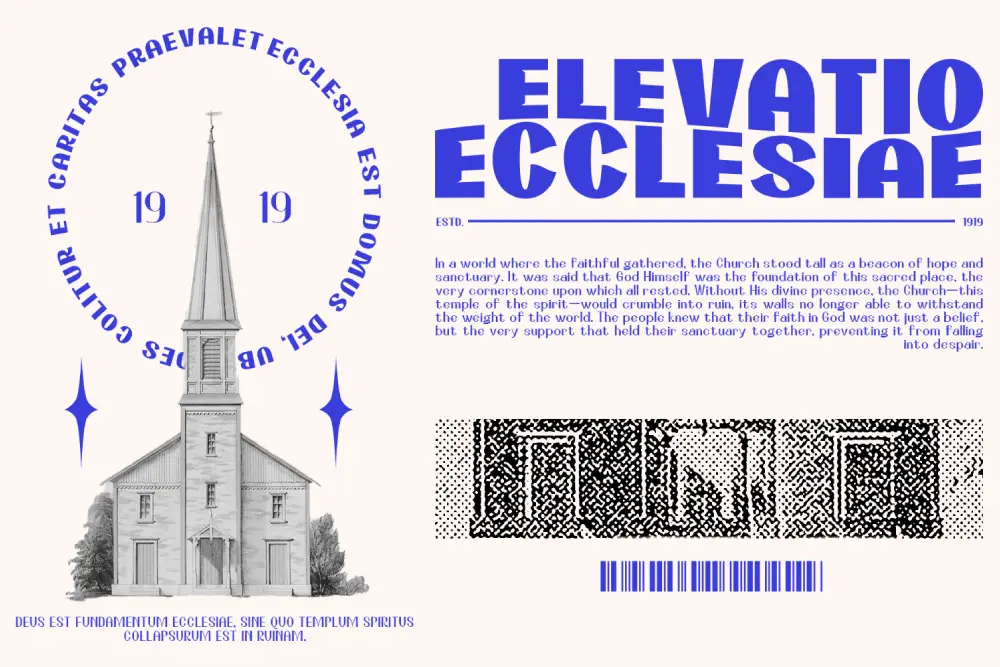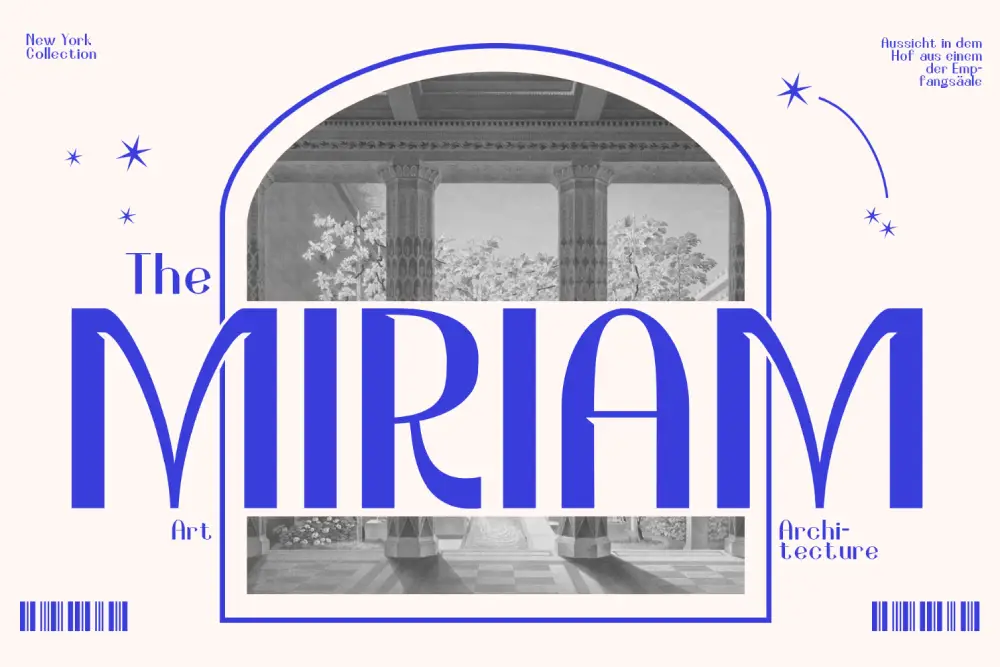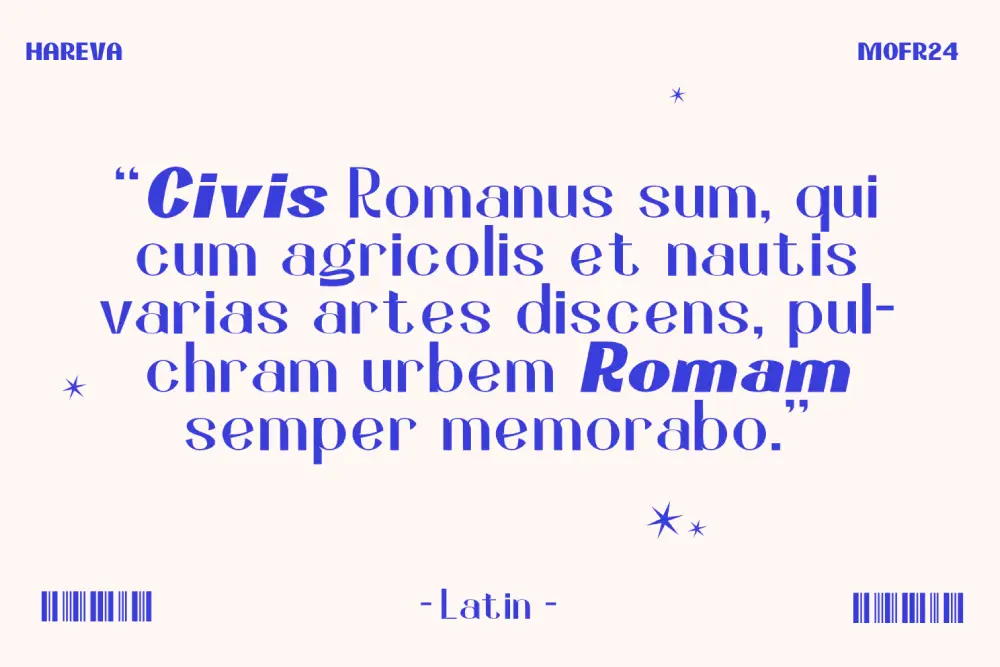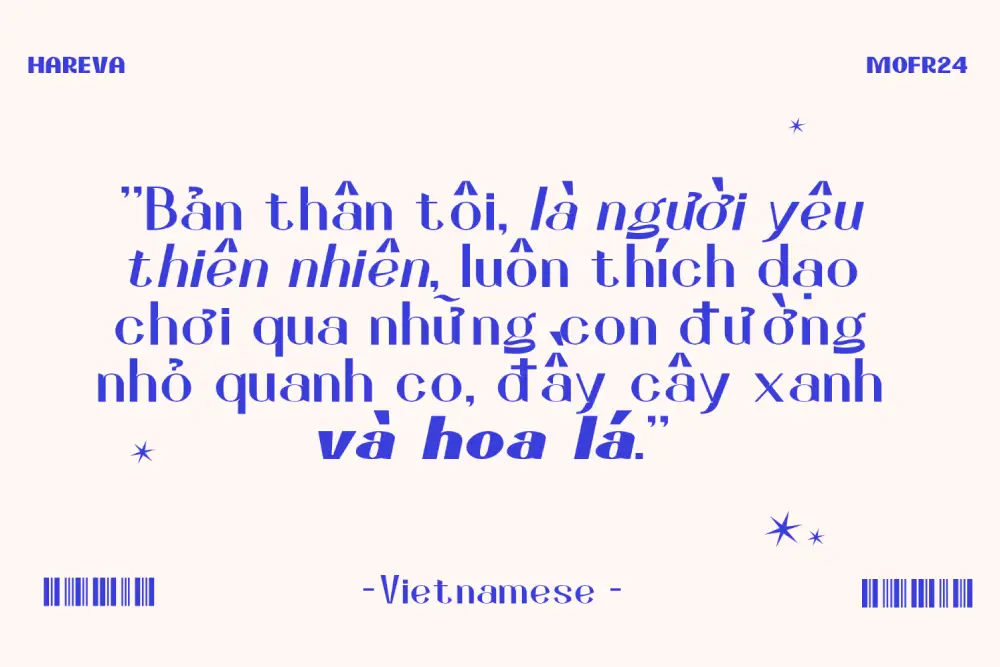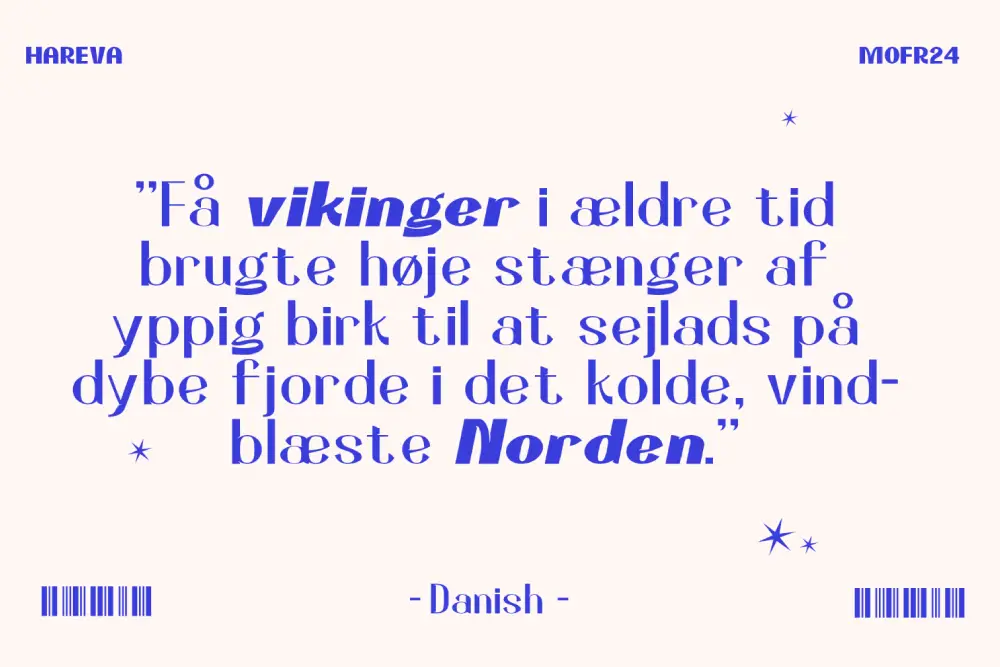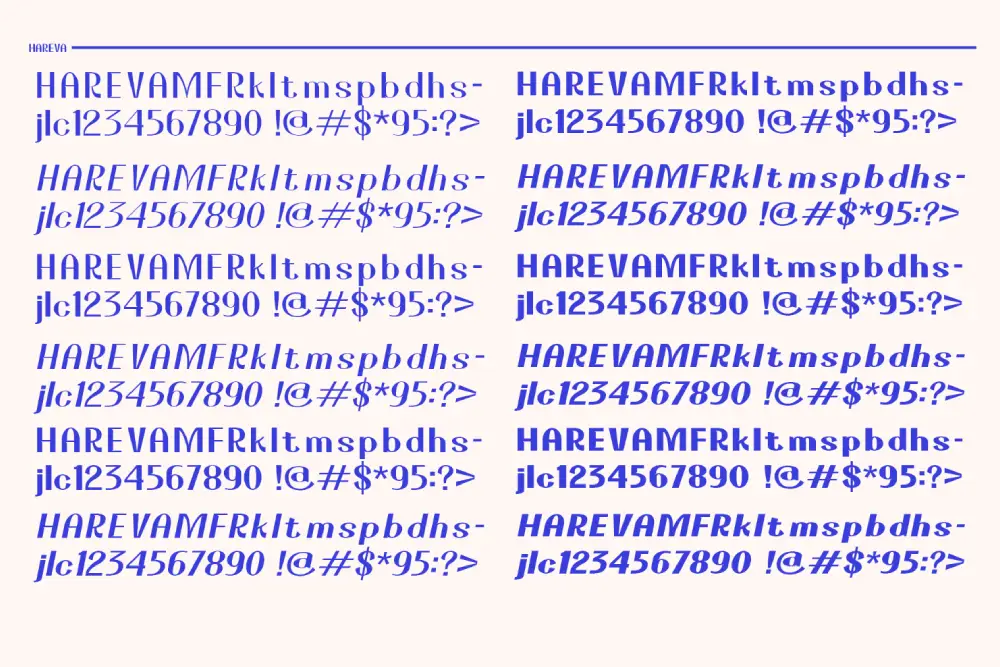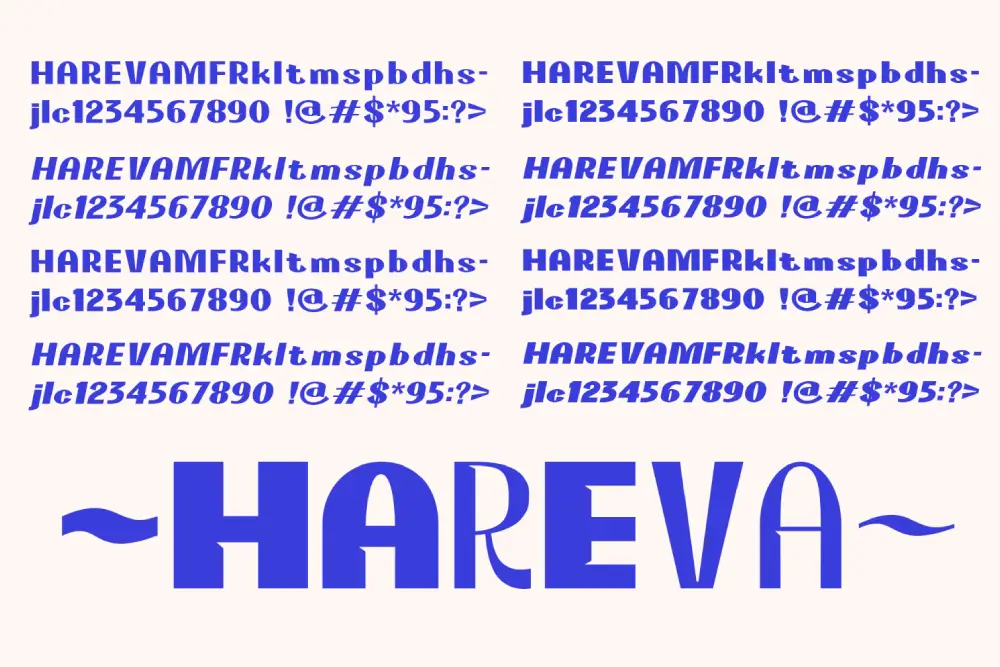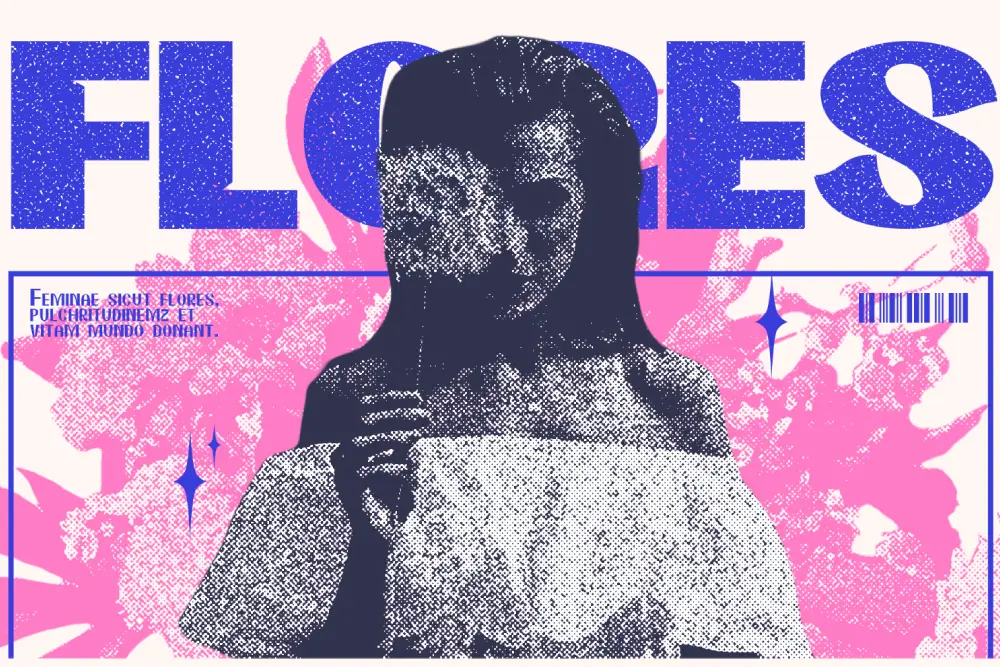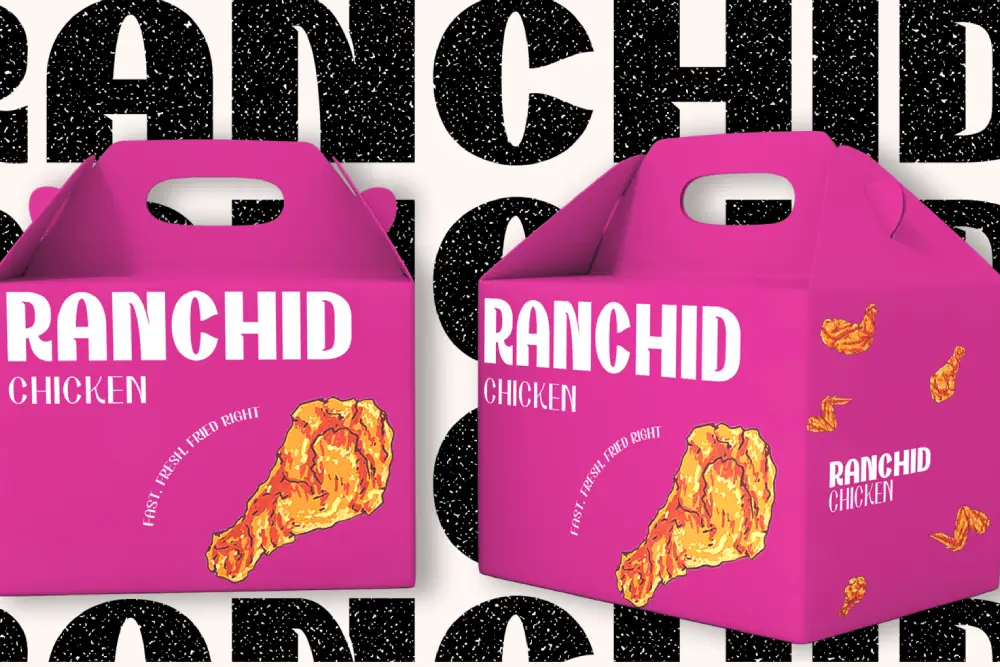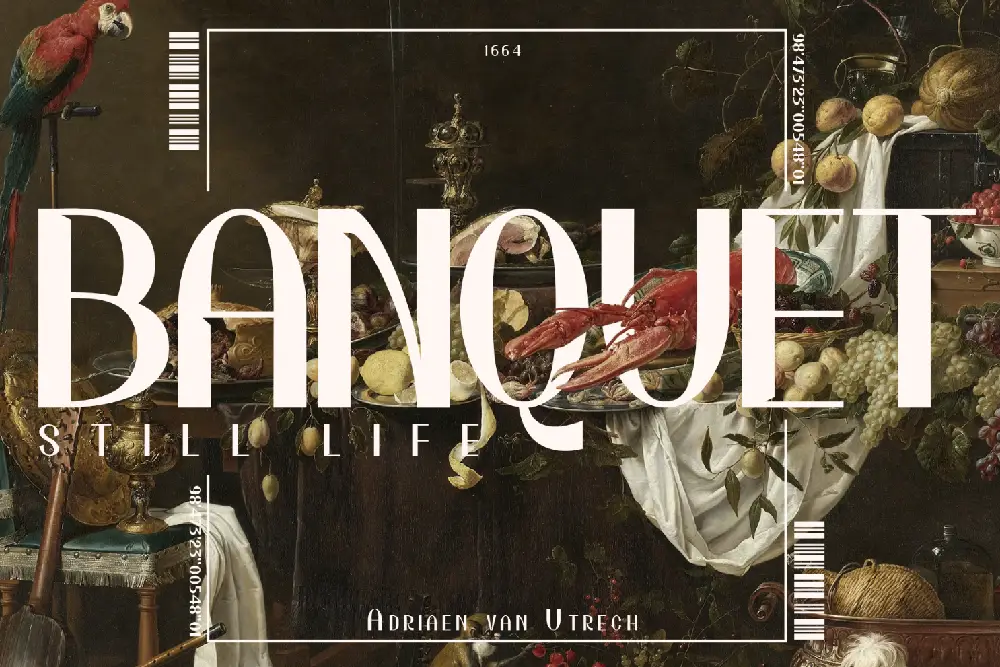
Hareva – Sleek Retro Sans Font for Modern Branding
Typography tells stories, and Hareva – Sleek Retro Sans Font is the voice of timeless modernism. Inspired by retro design but built for today’s creative needs, Hareva is a sleek retro sans font that blends nostalgia, clarity, and versatility in perfect harmony.
With its smooth curves, geometric structure, and wide range of dynamic weights, Hareva brings elegance and confidence to branding, editorial layouts, posters, and web typography. Whether you’re building a startup identity, a lifestyle campaign, or a tech interface, this sleek retro sans font adapts effortlessly.
If you’re searching for a font that captures both sophistication and simplicity, Hareva is the sans serif that elevates every design it touches.
Sleek Retro Sans Font with Modern Functionality
Hareva redefines how retro can feel modern. As a sleek retro sans font, it combines mid-century aesthetics with clean digital precision. Each stroke is designed to balance visual weight, making it equally functional for headlines and body text.
The dynamic weight system allows designers to experiment with tone—from the minimalist “Extra Light” to the commanding “Extra Black.” Every variation keeps its smooth rhythm and precise proportions, ensuring consistent readability across all scales.
This makes Hareva a go-to sleek retro sans font for agencies and creators who value timeless style without losing innovation.
Key Features of Hareva – Sleek Retro Sans Font
Every designer needs reliability and range. Here’s what makes Hareva – Sleek Retro Sans Font essential for your font collection:
• Uppercase, Lowercase, Numbers, Punctuations
• Support Multilingual Characters
• Dynamic Weight Family (20 styles)
• Retro-meets-Modern Feel – nostalgic yet minimal aesthetic
• Perfect for Branding & Web Design
Why Designers Love Hareva
Designers adore Hareva because it delivers both personality and performance. The sleek retro sans font aesthetic feels familiar yet forward-thinking—ideal for brands that want to blend timelessness with innovation.
• Versatile Weight Range – lets you create complete typographic hierarchies in one family.
• Perfect Geometry – every curve and line aligns perfectly for professional results.
• Global Usability – multilingual support allows global branding consistency.
• Timeless Appeal – retro soul, modern precision.
• Seamless Pairing – pairs beautifully with script and brush fonts for creative contrast.
Font Pairing Ideas for Hareva
The beauty of Hareva – Sleek Retro Sans Font lies in its ability to work alongside diverse styles. Try pairing it with:
Each combination enhances Hareva’s sleek retro sans font character—balancing sophistication with emotional energy.
Sleek Retro Sans Font for Branding and Editorials
Hareva’s clean letterforms and balanced rhythm make it the ideal choice for branding systems and editorial design. Its multi-weight family gives flexibility to create full identities—from thin tagline typography to bold logo marks.
As a sleek retro sans font, Hareva brings a confident yet approachable vibe. Brands using it appear stylish, organized, and trustworthy—perfect for tech startups, design studios, and creative agencies.
Final Thoughts on Hareva – Sleek Retro Sans Font
Hareva – Sleek Retro Sans Font is more than just a typeface; it’s a complete typographic ecosystem. With 20 dynamic weights, multilingual support, and a modern-retro personality, it adapts to any design challenge.
Whether for branding, digital campaigns, or editorial layouts, Hareva stands as a versatile and timeless choice. Its wide stylistic range makes it one of the most powerful sans serif families you’ll ever own.